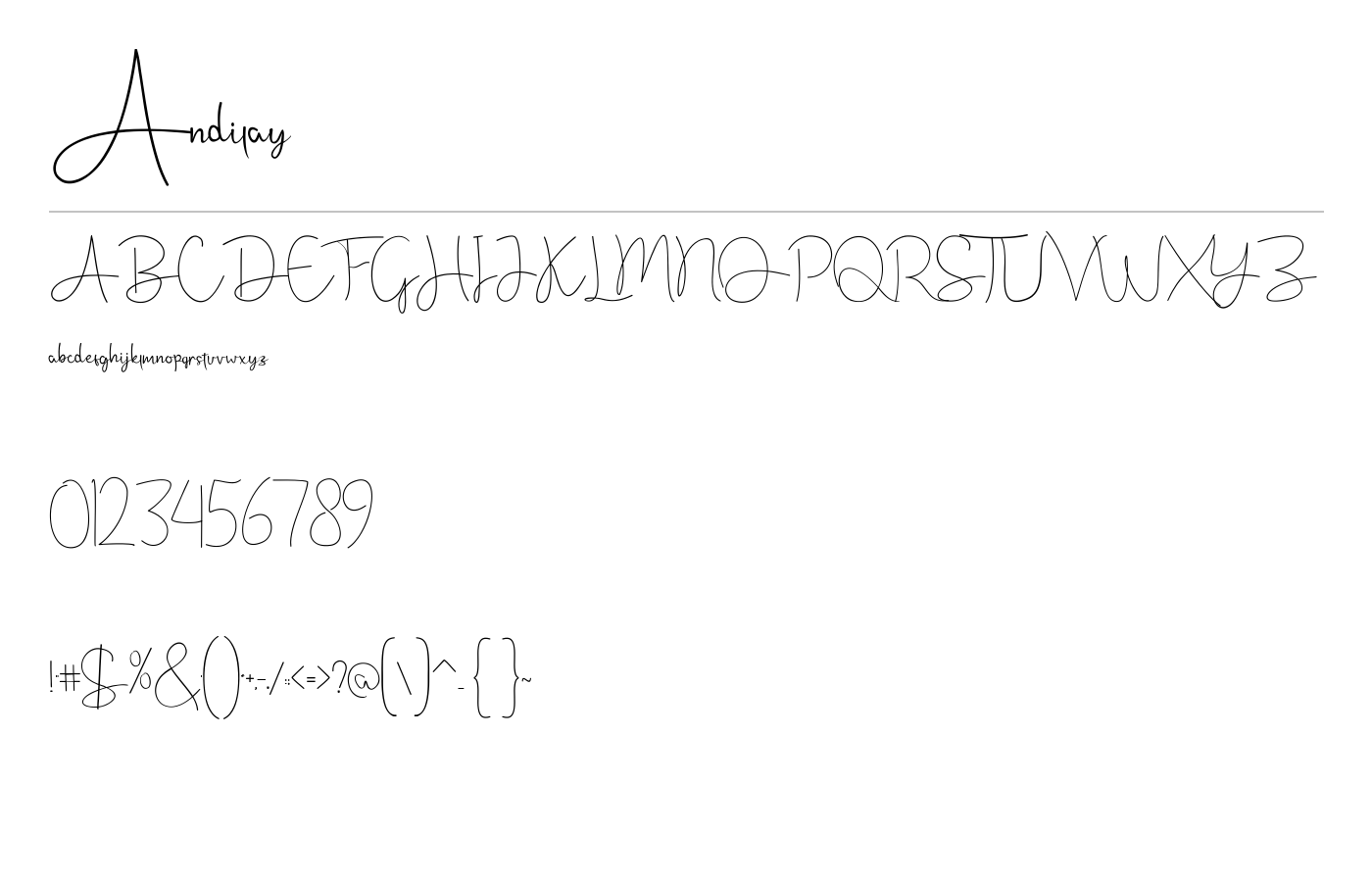
Andilay is a delicate, handwritten script font with thin, flowing lines and a whimsical, airy feel. Its tall, narrow letterforms and playful loops give it a light and elegant personality, making it perfect for creative projects, invitations, and branding that seeks a personal, artistic touch. This font works well in designs where a soft yet distinctive style is desired, especially in fashion, lifestyle, and boutique contexts.
Andilay Font